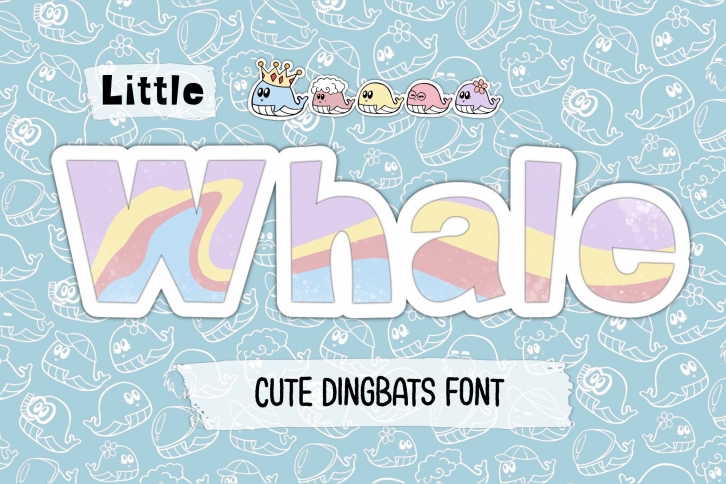
Little Whale is a fun and whimsical dingbats font. This font is the perfect fit for all of your logos, wall art, signs, cards, art prints, t-shirts, coloring pages, and much more!